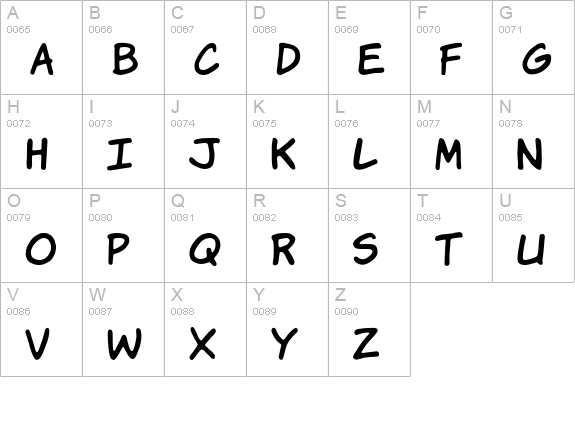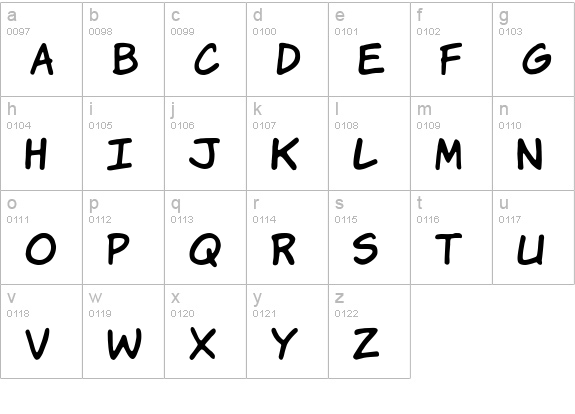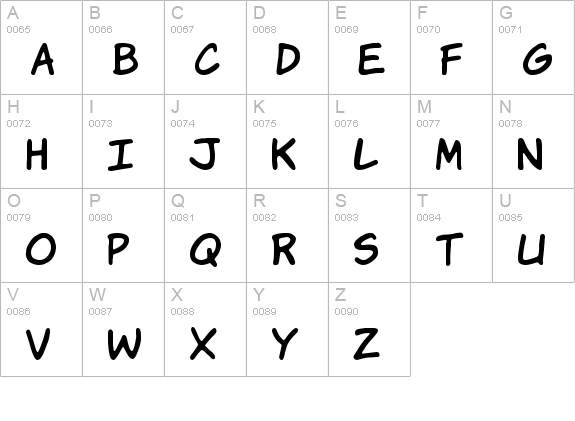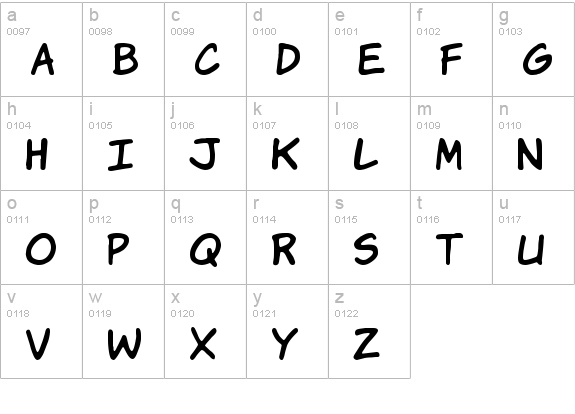
VTCKomixationHand Font Details
VTCKomixationHand font is a delightful and quirky typeface that brings a touch of whimsy to any design project. With its hand-drawn appearance, this font exudes a playful and lighthearted vibe that is perfect for adding a sense of fun to your creations. Its unique style captures the essence of hand-crafted art, making it an excellent choice for children's books, comic strips, or any design project that calls for a touch of creativity. What makes the VTCKomixationHand font even more appealing is that it is freely available to download at FontsMarket.com. This means that you can easily incorporate this charming font into your designs without any hassle or cost. Whether you are a professional designer or a hobbyist, having access to high-quality fonts like VTCKomixationHand can make a significant difference in the impact and appeal of your work. Not only does the VTCKomixationHand font offer a playful aesthetic, but it is also versatile in its usage. Its legibility and clean lines make it suitable for various applications, including posters, logos, invitations, and even social media graphics. Whether you want to create an eye-catching headline or add a touch of personality to your body text, this font will not disappoint. Furthermore, the VTCKomixationHand font is designed with user-friendliness in mind. Its easy-to-read characters are well-spaced and crafted to ensure a smooth reading experience. Additionally, its extensive character set includes uppercase and lowercase letters, numbers, punctuation marks, and a selection of special characters, allowing you to fully express your creativity and bring your design visions to life. So why wait? Take advantage of the opportunity to download the VTCKomixationHand font for free at FontsMarket.com and infuse your designs with a sense of whimsy and charm. Whether you want to create captivating illustrations, engaging comic strips, or captivating typography, this font is sure to become an essential tool in your creative arsenal.